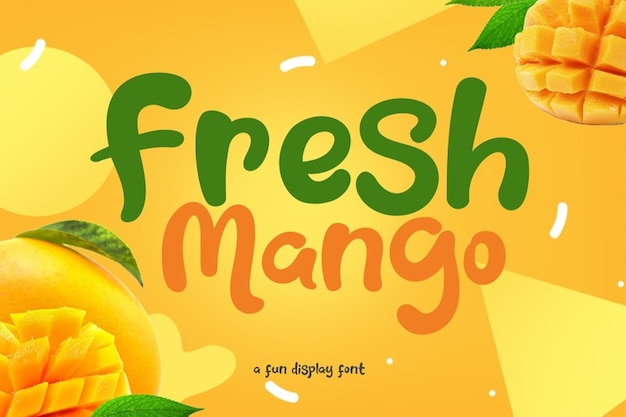
Fresh Mango Font
It is the font equivalent of a tropical delight. Its letters dance with a playful roundness that's as charming as a ripe mango's sweet juiciness. This font adds a touch of fun and a dash of humor to your designs, making it perfect for everything from fruity cocktail menus to children's book covers. With "Fresh Mango," your creations are as enticing as a sun-kissed mango on a hot summer day. It's the font that brings a burst of flavor and whimsy to your projects, leaving a juicy impression that's impossible to resist.